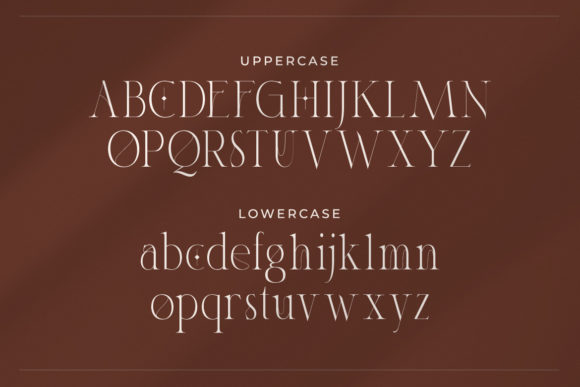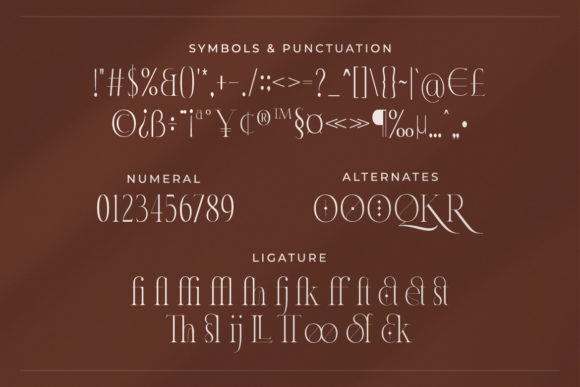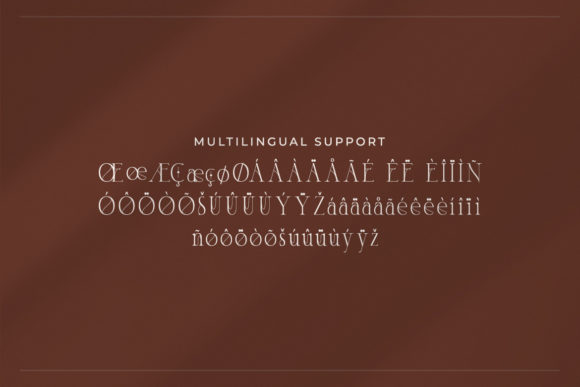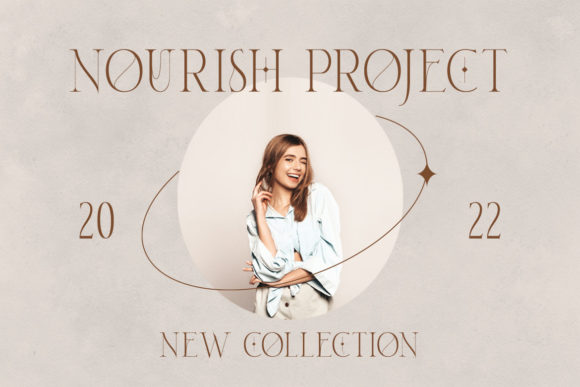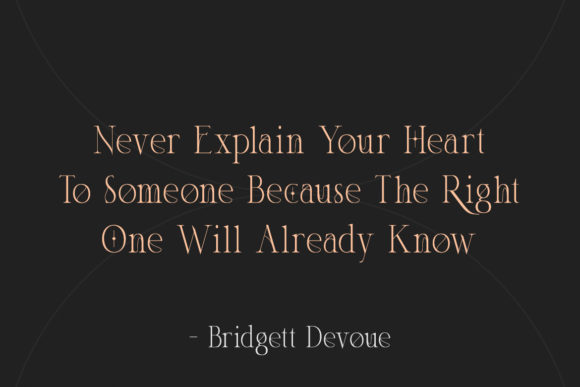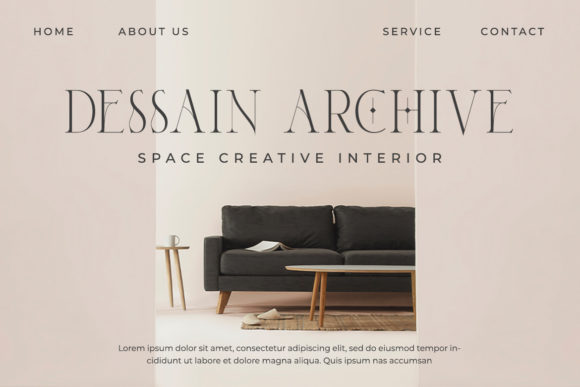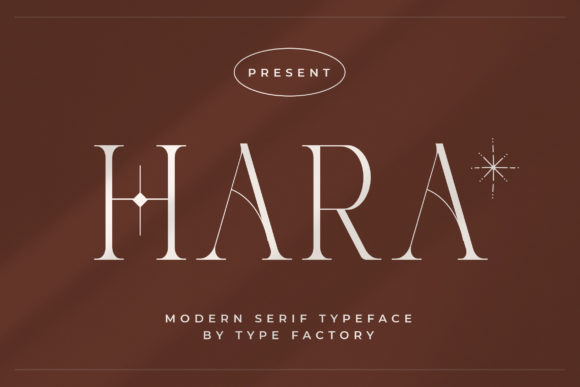
Introducing Hara Font: Elevate Your Designs with Elegance and Sophistication
In the world of typography, a font can make or break a design. For designers and crafters looking to add a touch of elegance and sophistication to their creations, Hara Font is an excellent choice. This stunning serif font is designed to impress, with its thin lettering and beautiful swashes that will take your designs to the next level.
What Makes Hara Font So Special?
Hara Font is an elegant and thin lettered serif font that exudes refinement and luxury. Its sleek lines and classic serif details make it perfect for a wide range of design applications, from branding and packaging to stationery and digital media. Whether you’re looking to create a sophisticated logo, a beautiful wedding invitation, or a stylish blog post, Hara Font is the perfect choice.
One of the standout features of Hara Font is its PUA (Private Use Area) encoding. This means that you can access all of the glyphs and swashes with ease, giving you complete creative control over your designs. With Hara Font, you can effortlessly add flourishes and decorative elements to your text, taking your designs from ordinary to extraordinary.
With Hara Font, the design possibilities are endless. Use it to create:
- Stunning Logos: Add a touch of elegance to your brand identity with a custom logo featuring Hara Font.
- Beautiful Stationery: Create gorgeous invitations, greeting cards, and letterheads that will make your correspondence stand out.
- Sophisticated Digital Media: Use Hara Font to elevate your blog posts, social media graphics, and website designs.
- Exquisite Packaging: Add a touch of luxury to your product packaging with Hara Font.
Why Choose Hara Font?
With so many fonts available, why choose Hara Font? Here are just a few reasons:
- Elegance: Hara Font is designed to be elegant and sophisticated, making it perfect for designs that require a touch of refinement.
- Versatility: Hara Font can be used for a wide range of design applications, from print to digital media.
- Easy to Use: With PUA encoding, accessing glyphs and swashes is easy, making it simple to get the most out of Hara Font.
In conclusion, Hara Font is a must-have for designers and crafters looking to add a touch of elegance and sophistication to their creations. With its thin lettered serif design, PUA encoding, and endless design possibilities, Hara Font is the perfect choice for anyone looking to elevate their designs. So why not give it a try? Add Hara Font to your favorite creations and see the amazing results for yourself.